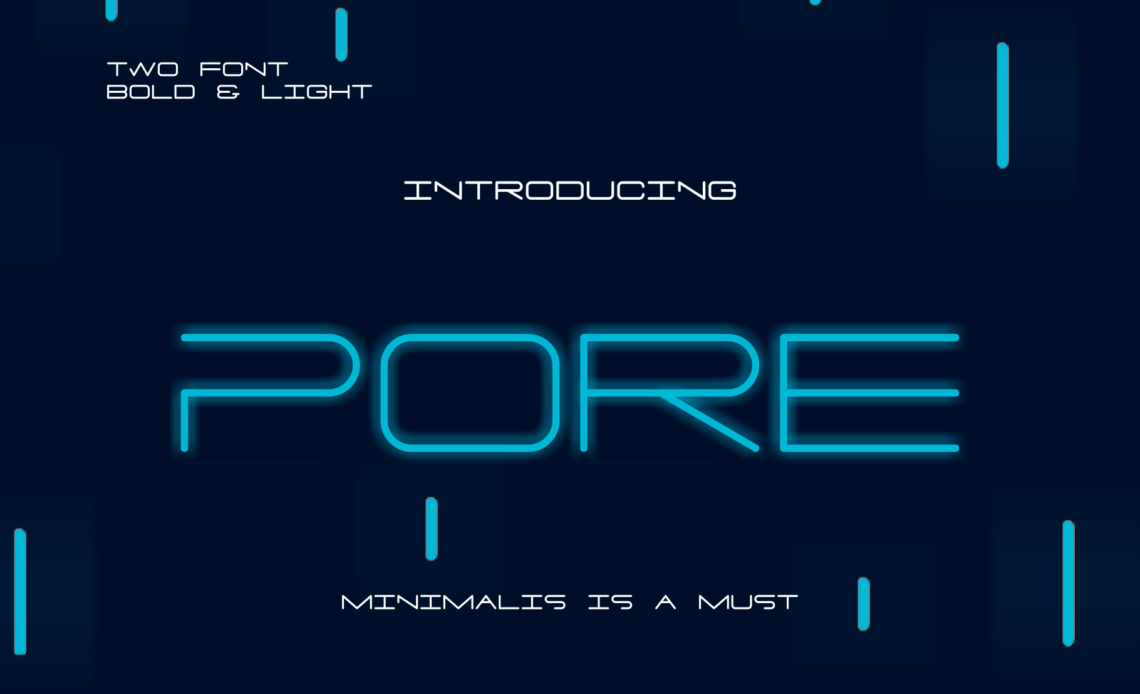
Introducing Pore Font, a captivating and futuristic typeface that will elevate your designs to new heights. Immerse yourself in the world of science fiction and minimalist aesthetics with this striking sans serif font.
Crafted by the visionary Bangun Studio, Pore Font exudes an air of sophistication and modernity. Its geometric structure and appealing width create a visually stunning foundation for your creative endeavors. The light monoline weight adds a touch of informality, injecting a playful sci-fi essence into your work.
Whether you're a seasoned designer or just starting your creative journey, Pore Font is the perfect choice for a wide range of projects. Its versatility knows no bounds, from sleek logos and eye-catching headlines to captivating social media posts and website designs.
With Pore Font, you'll discover a world of possibilities. Engage your audience with captivating headlines that demand attention. Create logos that radiate a sense of innovation and cutting-edge style. Craft website designs that transport visitors to a realm of futuristic wonder.